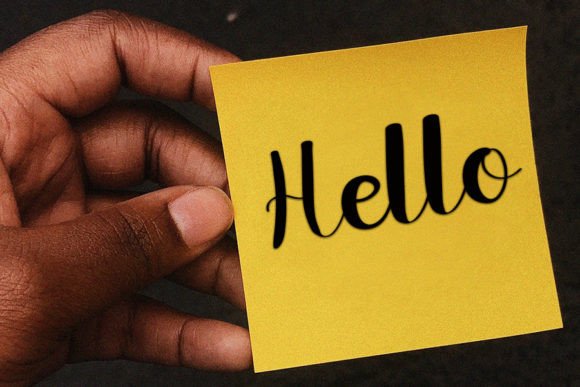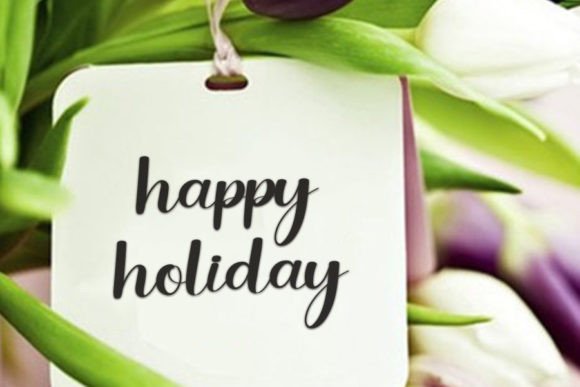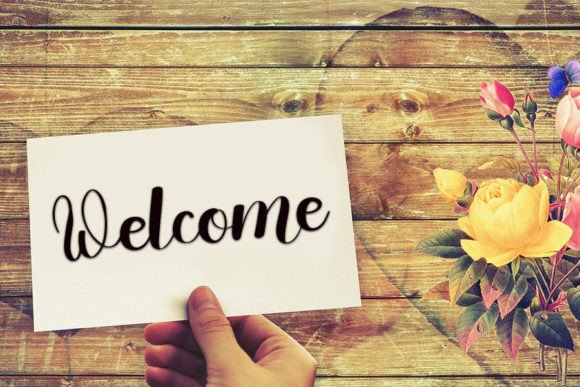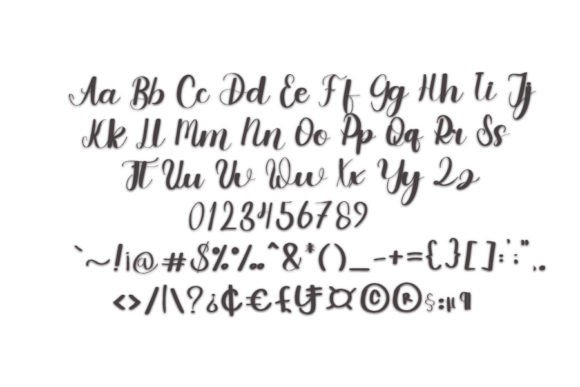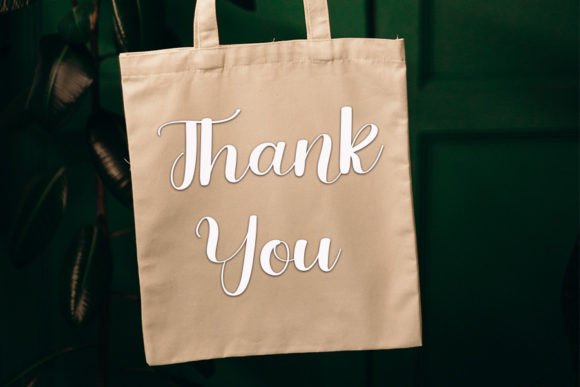
Coffee Font: Elevate Your Designs with a Modern Handwritten Style
Are you searching for a font that adds a touch of elegance and sophistication to your projects? Look no further than Coffee Font, a stunning handwritten font that embodies the perfect blend of modernity and classic calligraphy. In this article, we’ll dive into the world of Coffee Font, exploring its unique features, design inspiration, and the endless possibilities it offers for designers and crafters.
The Inspiration Behind Coffee Font
Coffee Font is a carefully crafted handwritten font that draws inspiration from the timeless beauty of classic calligraphy. Its creator aimed to strike a balance between modernity and tradition, resulting in a font that exudes a sense of freshness and sophistication. With its spotless form and balanced strokes, Coffee Font is the perfect choice for designers seeking a font that will elevate their projects to the next level.
Key Features of Coffee Font
Coffee Font boasts a range of features that make it an attractive choice for designers and crafters. Some of its key characteristics include:
- Balanced and varied strokes: Coffee Font’s strokes are carefully crafted to be neither too thin nor too thick, creating a sense of harmony and visual appeal.
- Modern vibe: With its clean lines and contemporary feel, Coffee Font is perfect for designers seeking a modern handwritten font.
- Spotless form: The font’s spotless form ensures that it remains legible and visually appealing, even at smaller sizes.
Coffee Font is an incredibly versatile font that can be used in a wide range of projects, from:
- Branding and logos: Add a touch of elegance to your brand’s identity with Coffee Font.
- Packaging and labels: Create eye-catching packaging and labels that stand out from the crowd.
- Stationery and invitations: Add a personal touch to your stationery and invitations with Coffee Font’s beautiful handwritten style.
- Digital designs: Use Coffee Font to create stunning digital designs, from social media graphics to website headers.
Why Choose Coffee Font?
With so many fonts available, why choose Coffee Font? Here are just a few reasons why designers and crafters love this font:
- Unique and distinctive: Coffee Font’s modern handwritten style sets it apart from more traditional fonts.
- Easy to read: The font’s balanced strokes and spotless form ensure that it remains legible, even at smaller sizes.
- Highly versatile: Coffee Font can be used in a wide range of projects, from branding and packaging to digital designs.
In conclusion, Coffee Font is a stunning handwritten font that offers a unique blend of modernity and classic calligraphy. With its balanced strokes, spotless form, and modern vibe, this font is perfect for designers and crafters seeking to elevate their projects. Whether you’re creating branding and logos, packaging and labels, or digital designs, Coffee Font is an excellent choice. So why wait? Discover the endless possibilities of Coffee Font and take your designs to the next level.
Get Creative with Coffee Font
Ready to get creative with Coffee Font? Here are some tips to help you get started:
- Experiment with different sizes: Coffee Font looks great at a range of sizes, from small and delicate to large and bold.
- Play with colors: Try pairing Coffee Font with different colors and textures to create unique and eye-catching designs.
- Mix and match: Combine Coffee Font with other fonts and design elements to create stunning and complex designs.